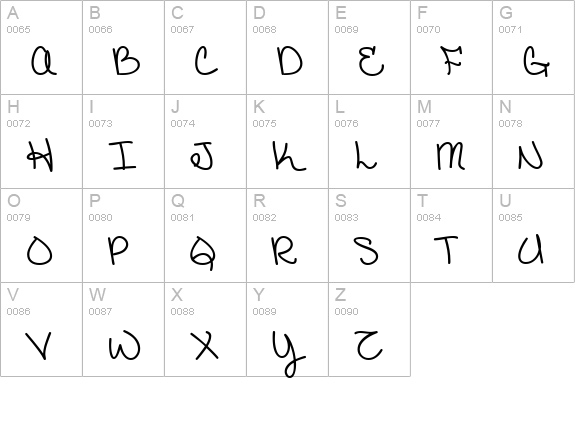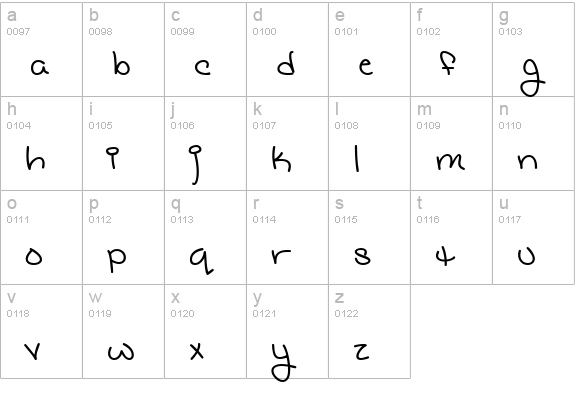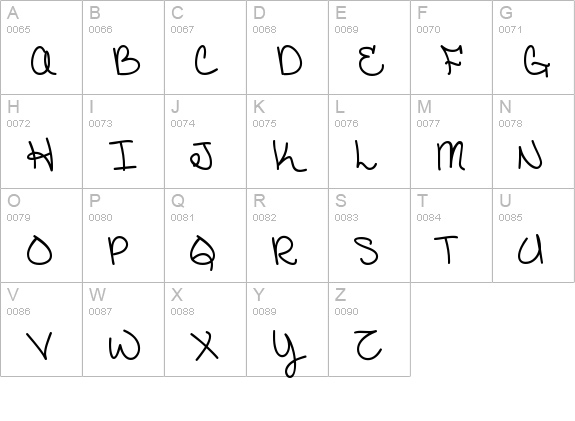
CatholicSchoolGirls BB Font Details
CatholicSchoolGirls BB font exudes a sense of nostalgia and charm, reminiscent of handwritten notes passed in the schoolyard. Its playful and whimsical style captures the innocence and mischief of school days gone by. This font is perfect for adding a touch of fun and personality to your designs, whether for invitations, posters, or branding projects. Best of all, CatholicSchoolGirls BB font is available for free download at FontsMarket.com. Embrace the carefree spirit of youth with this delightful font that is sure to bring a smile to your audience's faces.